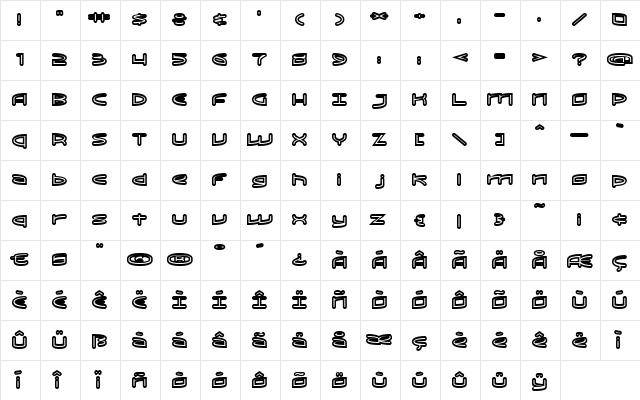
ReadOut Super Regular
Design Context for ReadOut Super Typeface
ReadOut Super is a composed and adaptable typeface that performs quietly and consistently across a wide range of design contexts.